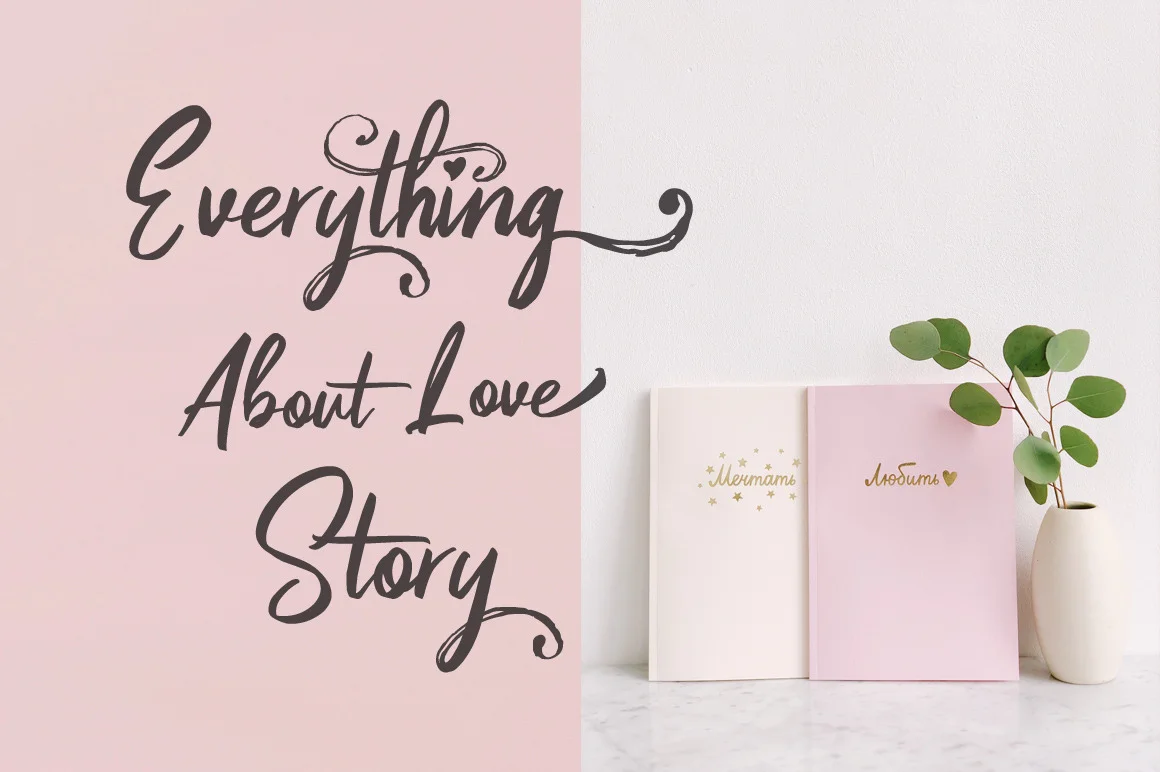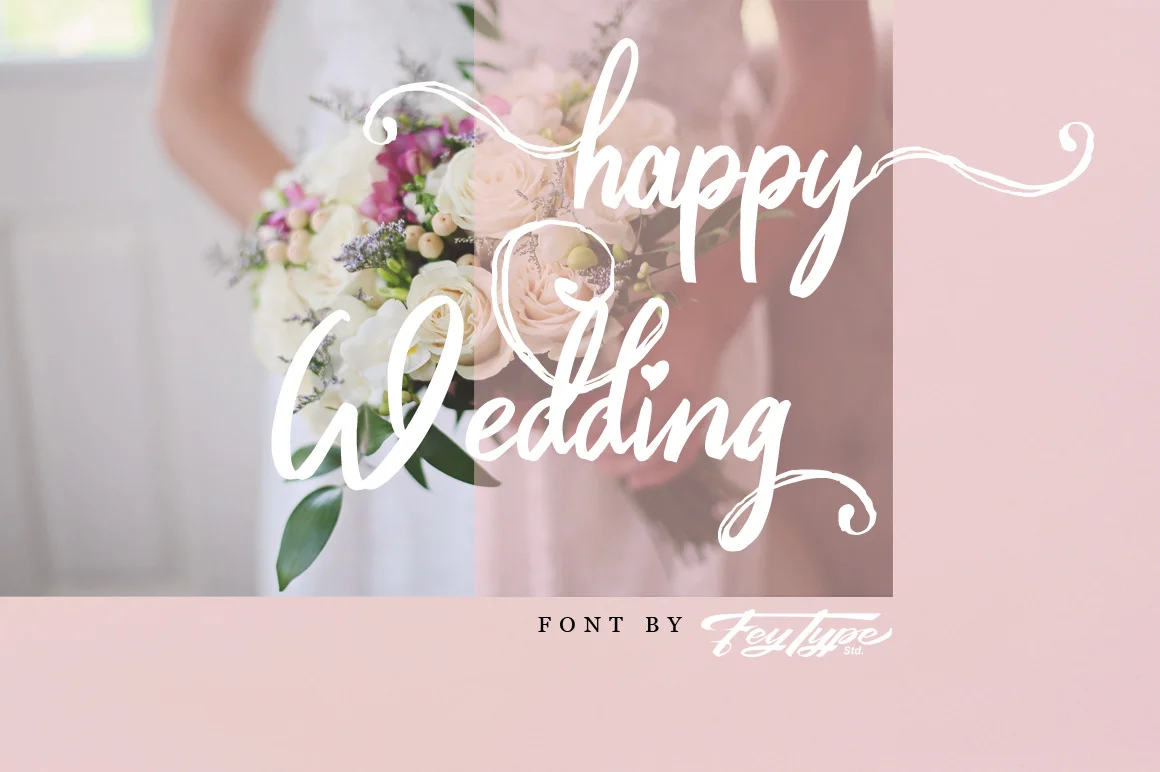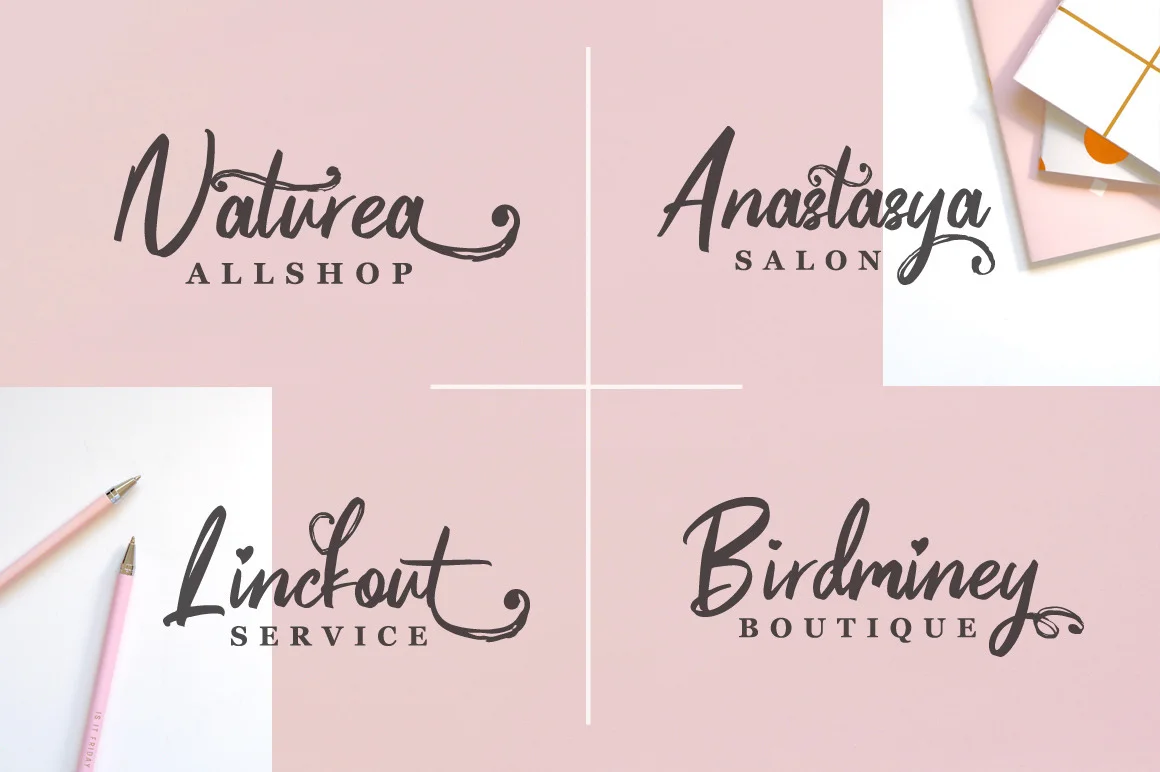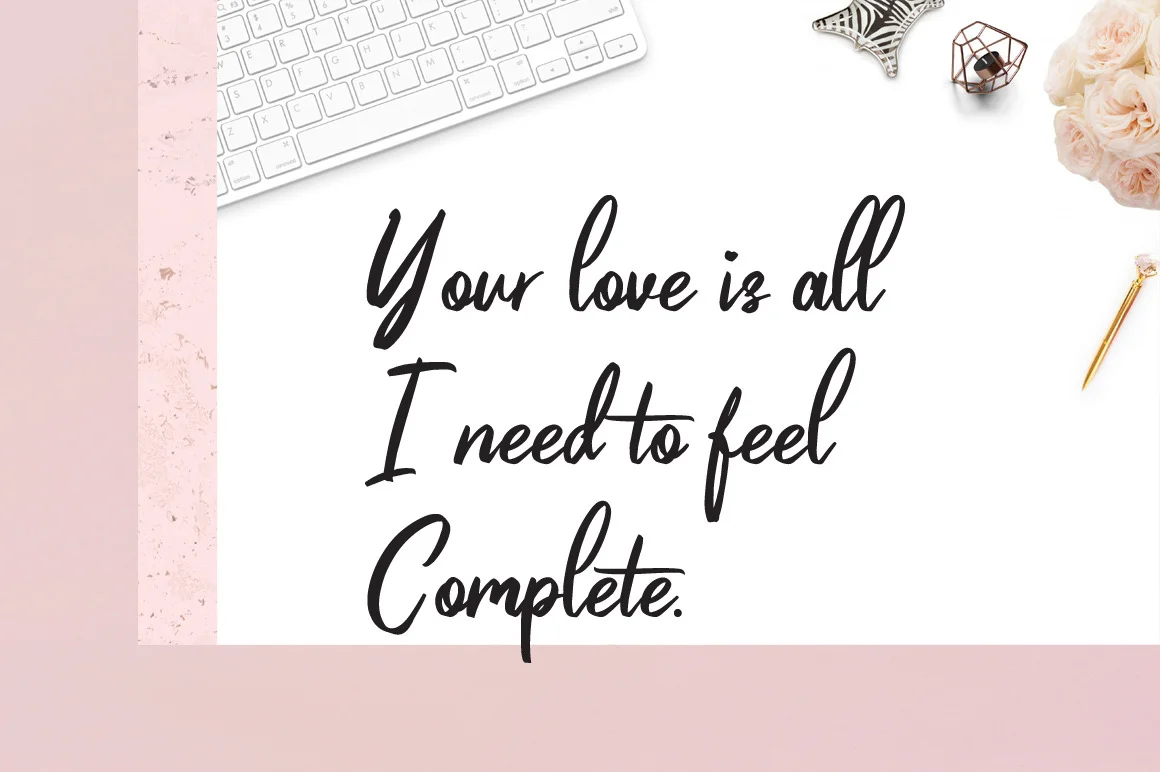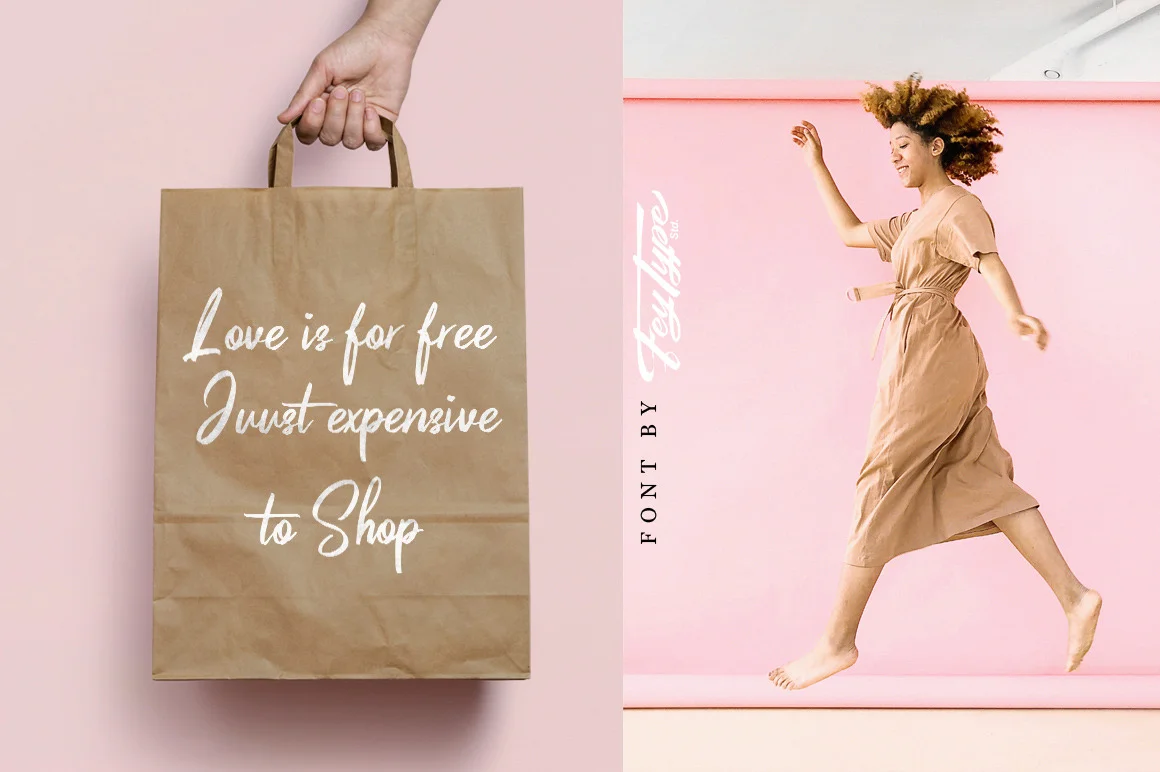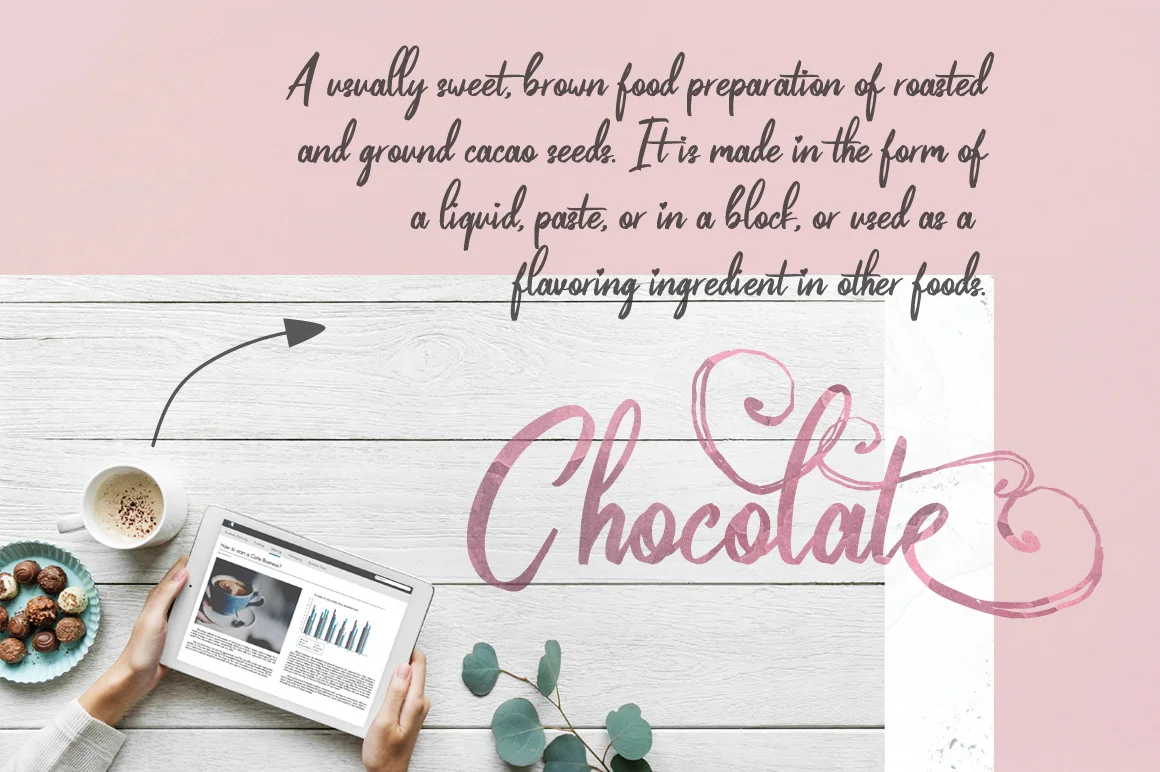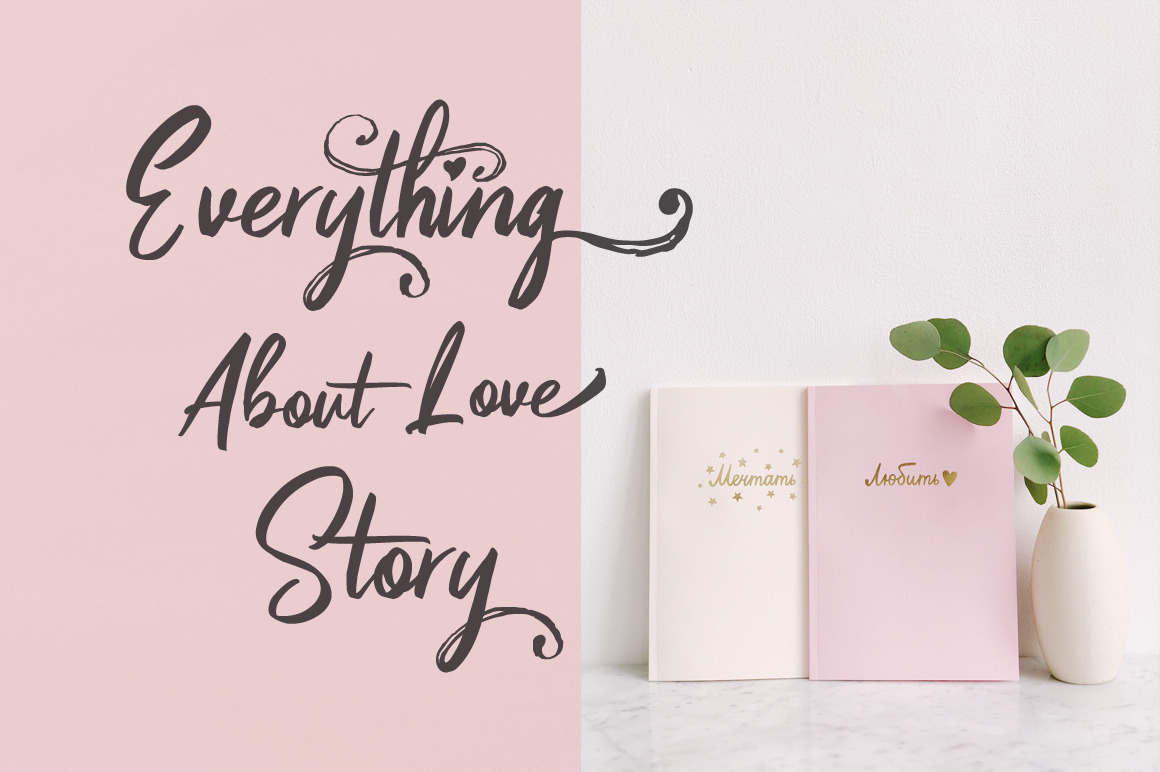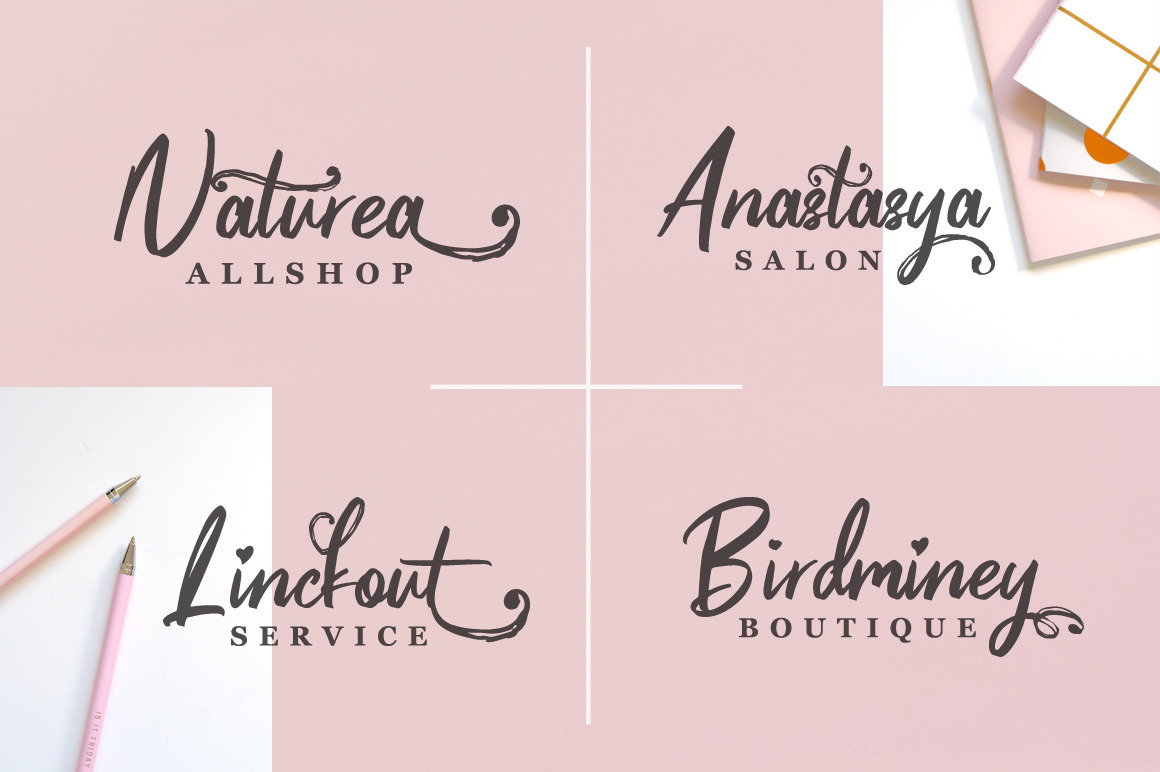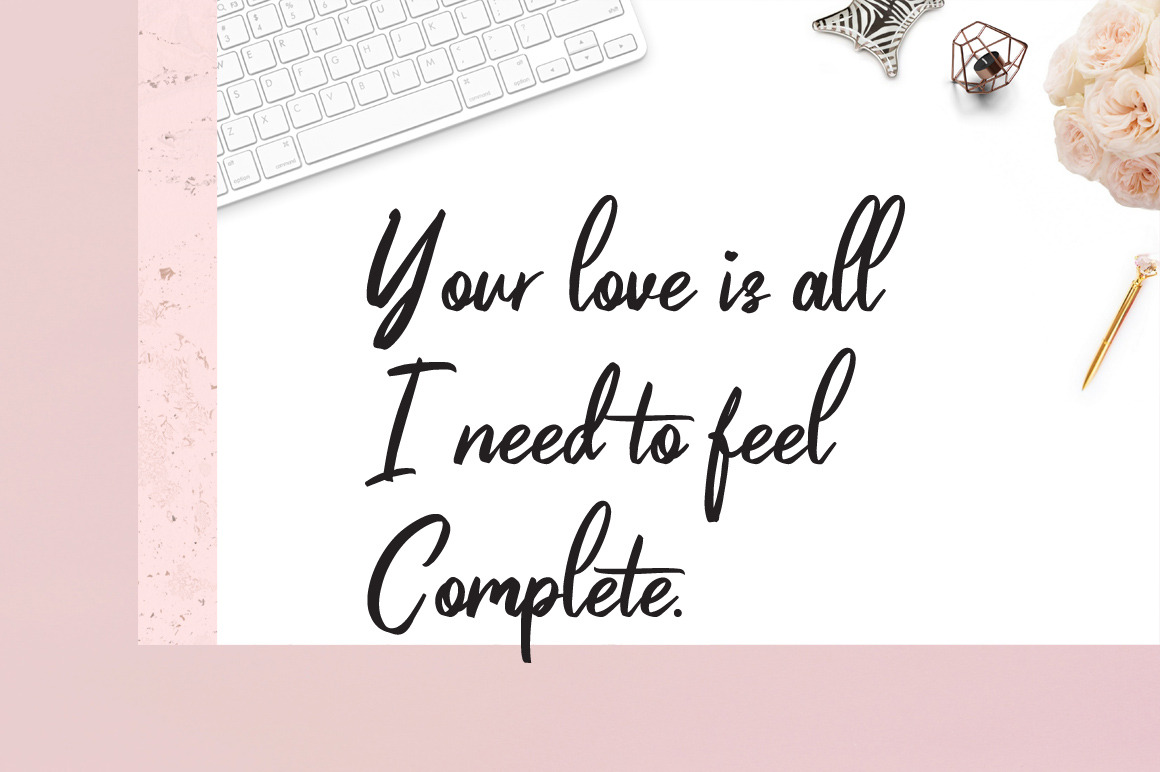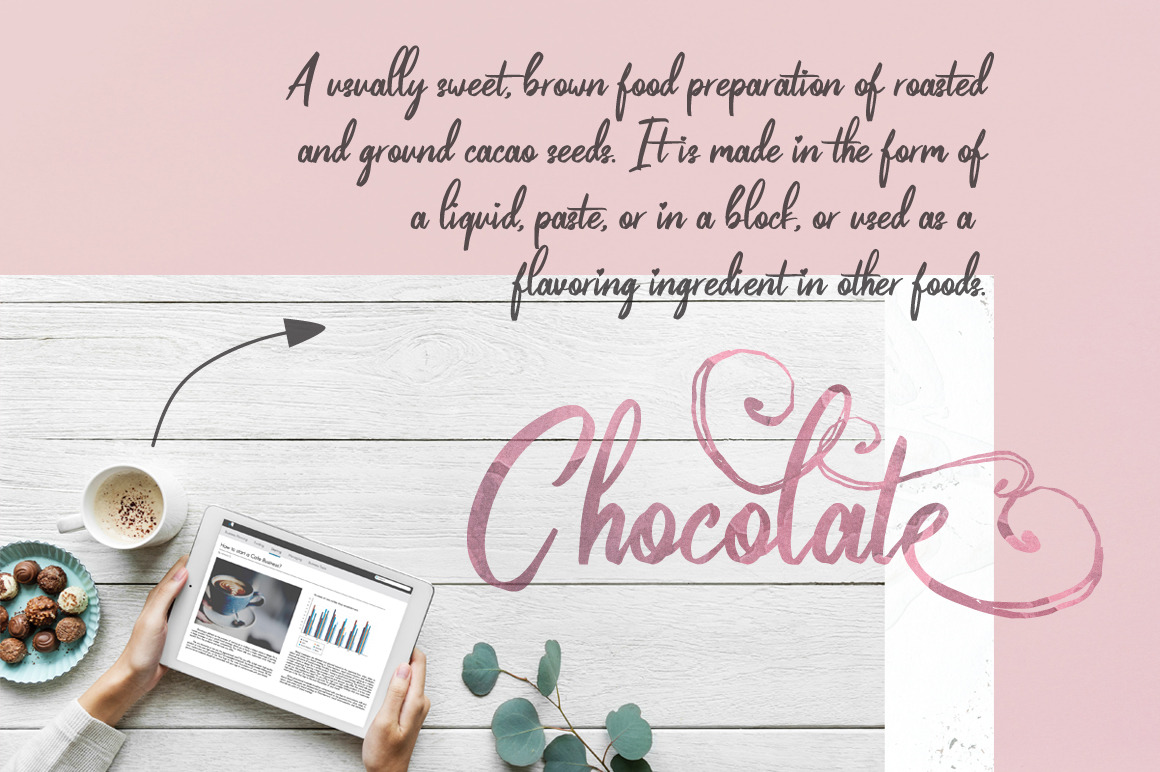
Pinkalova - Handwritting Script Font
Typography shapes perception at a subconscious level. Pinkalova - Handwritting Script leverages consistent type colour across continuous text to make every composition feel considered. The typeface brings an elegant, calligraphic sensibility to a broad range of creative disciplines, with distinctive character without sacrificing readability that holds up whether the work is print-first or screen-first.
In practice, Pinkalova - Handwritting Script proves particularly effective for perfume labels, logo design, environmental graphics, web design, product labels. Designers reaching for it find that the type decisions feel resolved rather than laboured — a useful quality when client timelines are tight.
The range of applications extends to event signage, feminine branding, beauty packaging, editorial layouts. That breadth is deliberate: the proportions and spacing were stress-tested across a wide range of mock briefs before the typeface was finalised.
Pairing Pinkalova - Handwritting Script with a contrasting serif or a neutral grotesque gives mixed-format layouts a clear visual grammar without requiring constant size adjustments to establish hierarchy.
Independent studios handling packaging and editorial work find Pinkalova - Handwritting Script a reliable choice for projects that demand both personality and restraint. The design avoids the self-conscious quirkiness that dates quickly, settling instead for considered distinctiveness that holds up over time.